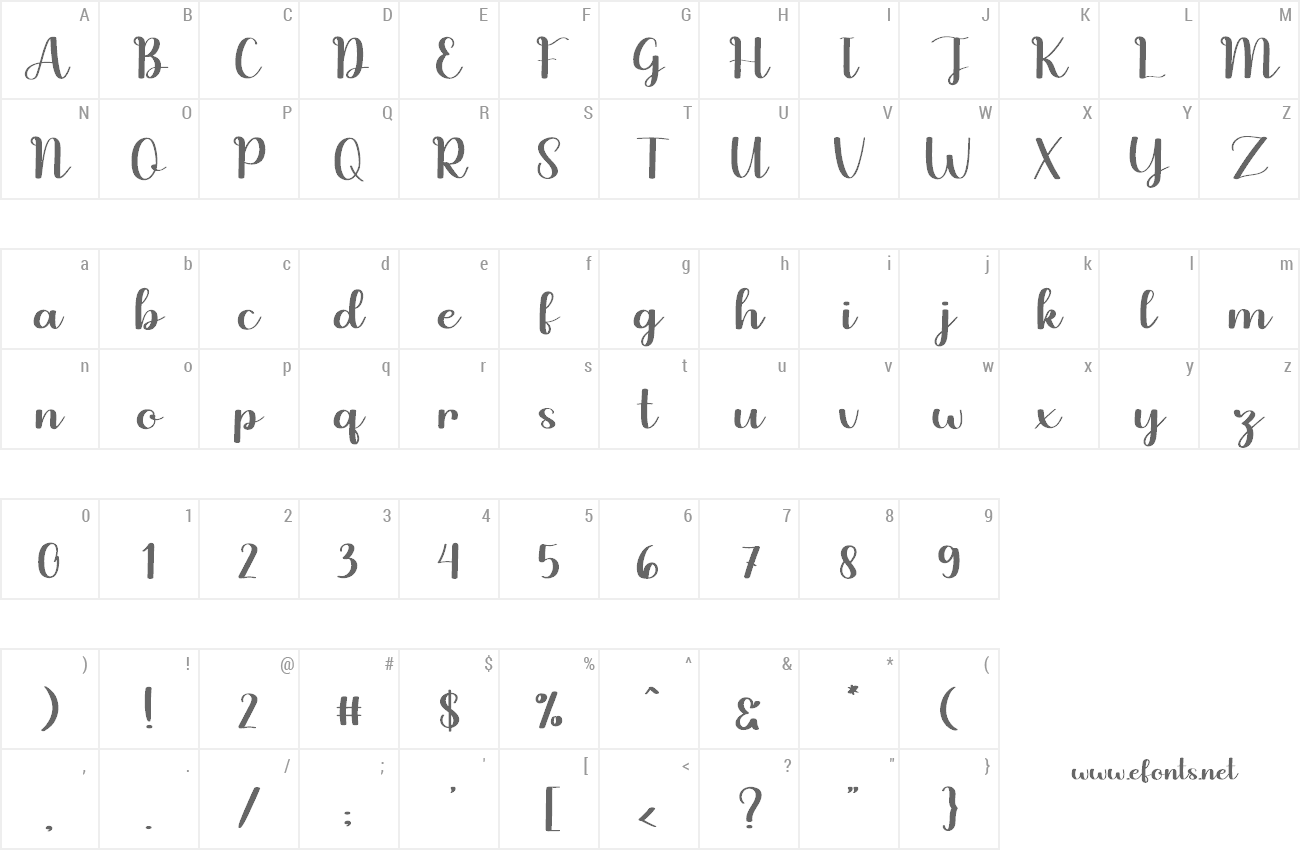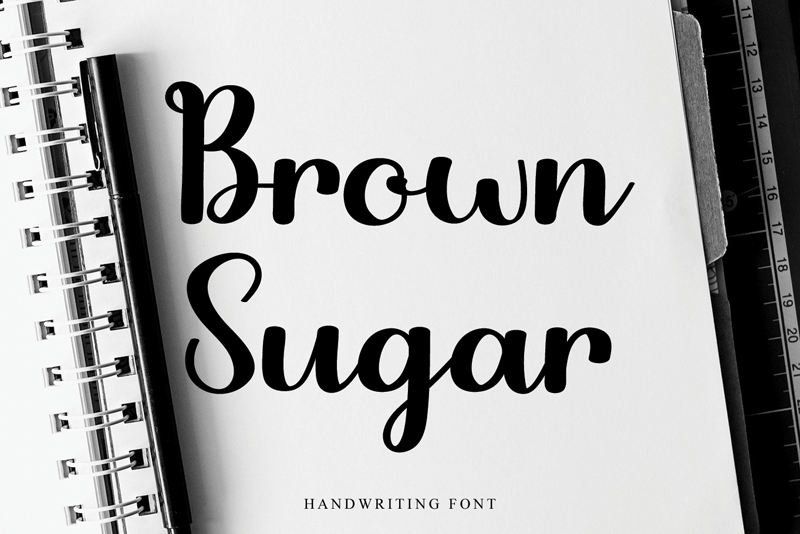
Brown Sugar is a flowing and graceful script font. Fall for its ravishing style and use it to create gorgeous wedding invitations, beautiful stationary art, eye-catching social media posts, and much more! Attention : Brown Sugar handwriting Font is prohibited to use this font for commercial purposes or for profit without the permission of the author/admin, without being known to use this font without permission, will be subject to sanctions 5x the specified price. This font is used only for demos (Demo license) If you want to use this font for commercial use please contact email: erikluluk0@gmail.com or click the link below: https://www.creativefabrica.com/product/brown-sugar-13/ref/745146/ If you want to see more other fonts, please click:https://www.creativefabrica.com/designer/erik-studio/ref/745146/ Any donations are very appreciated. Paypal account for donation: https://paypal.me/eriksupriyant thanks. |